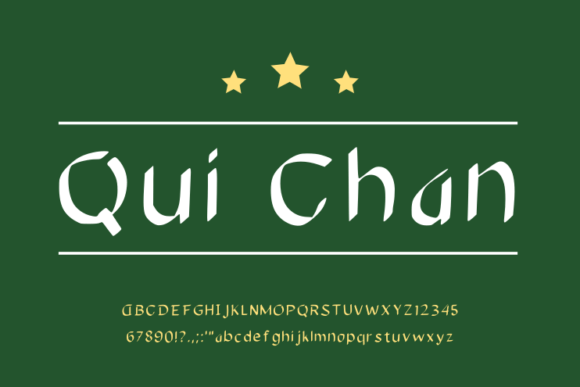
Introducing QuinChan, the captivating font duo that will transform your digital presence! This meticulously crafted typeface exudes modern elegance and timeless appeal, making it the perfect choice for discerning designers and typography enthusiasts.
QuinChan's sans-serif design adds a touch of contemporary flair to any project, while its serif counterpart whispers a hint of sophistication. Together, they create a harmonious balance that captivates the eye and ignites the imagination.
Imagine your iPhone messages bursting with personality as you embrace QuinChan's legibility and style. Its clean lines and open letterforms ensure effortless readability, making it the ideal font for seamless communication.
Step into the realm of design excellence with QuinChan. Its versatility knows no bounds, lending itself effortlessly to elegant logos, captivating book titles, and fashion-forward magazine layouts. Embrace the power of this font duo and let your creativity soar.
Whether you're seeking a font that exudes timeless charm or modern edge, QuinChan delivers. Its unique style and modern look will elevate your designs to new heights.